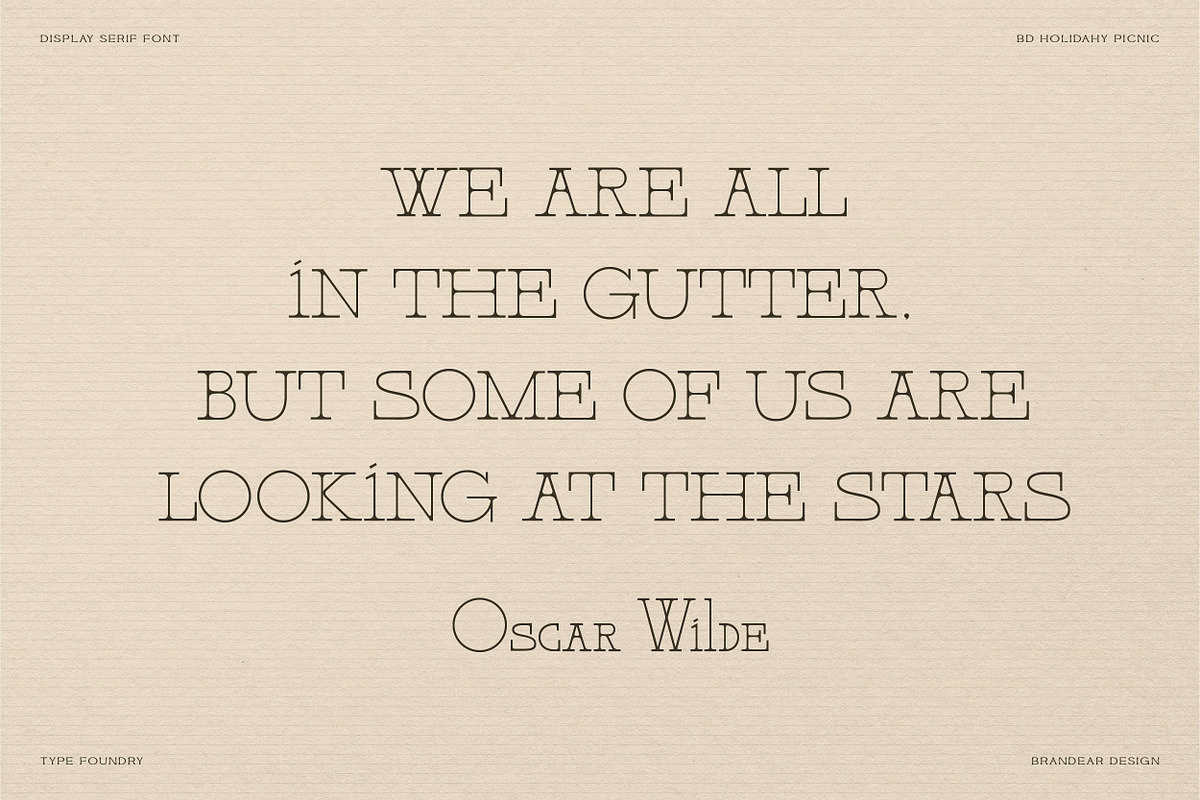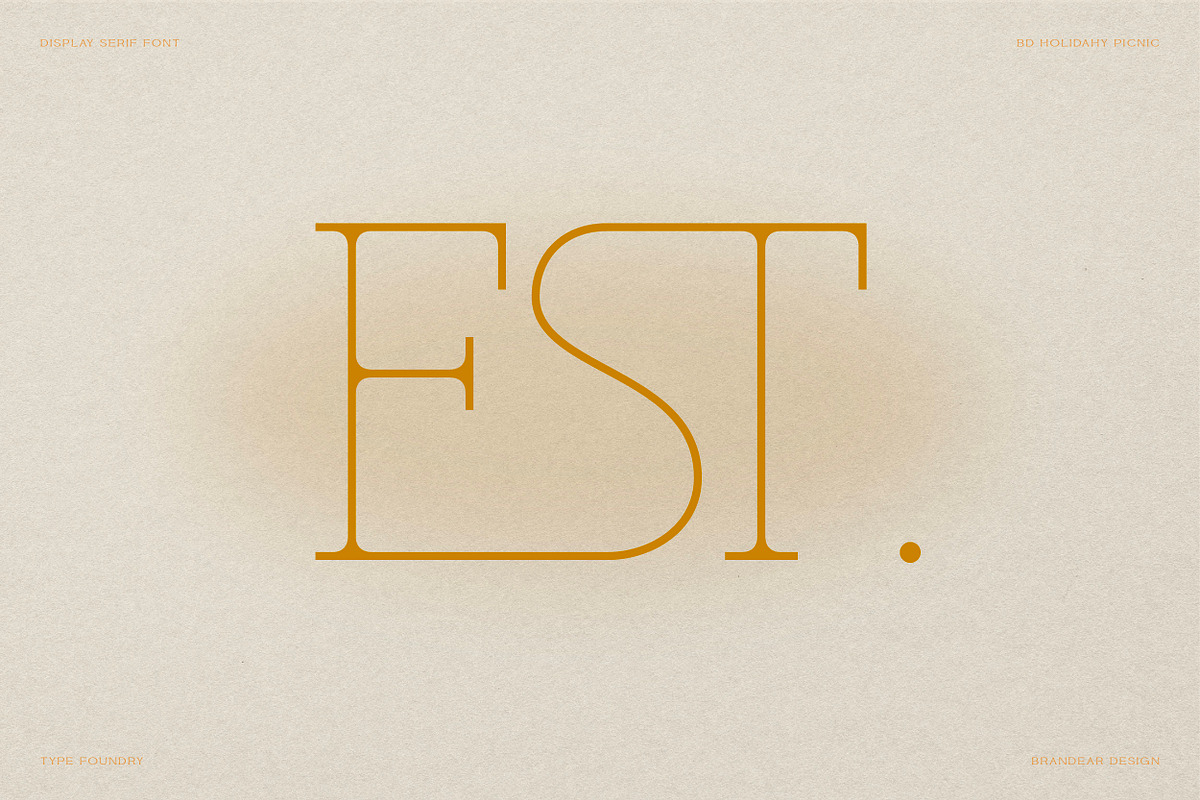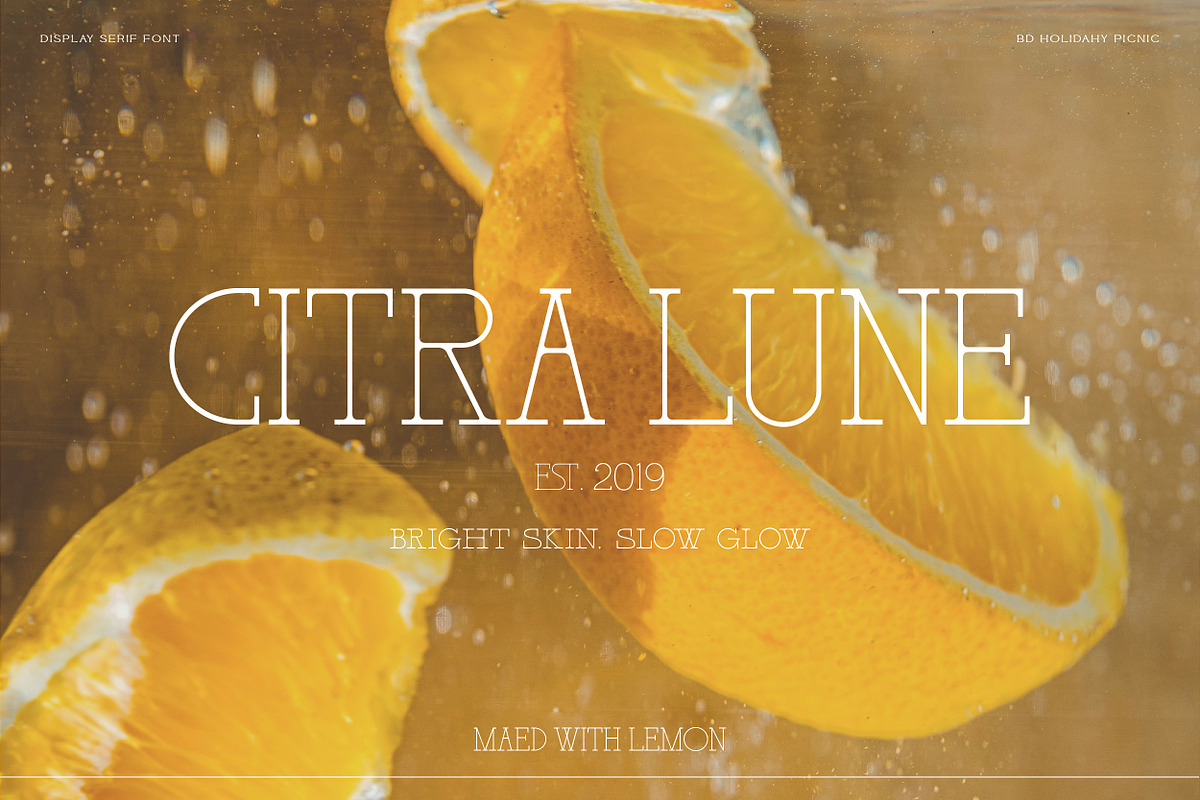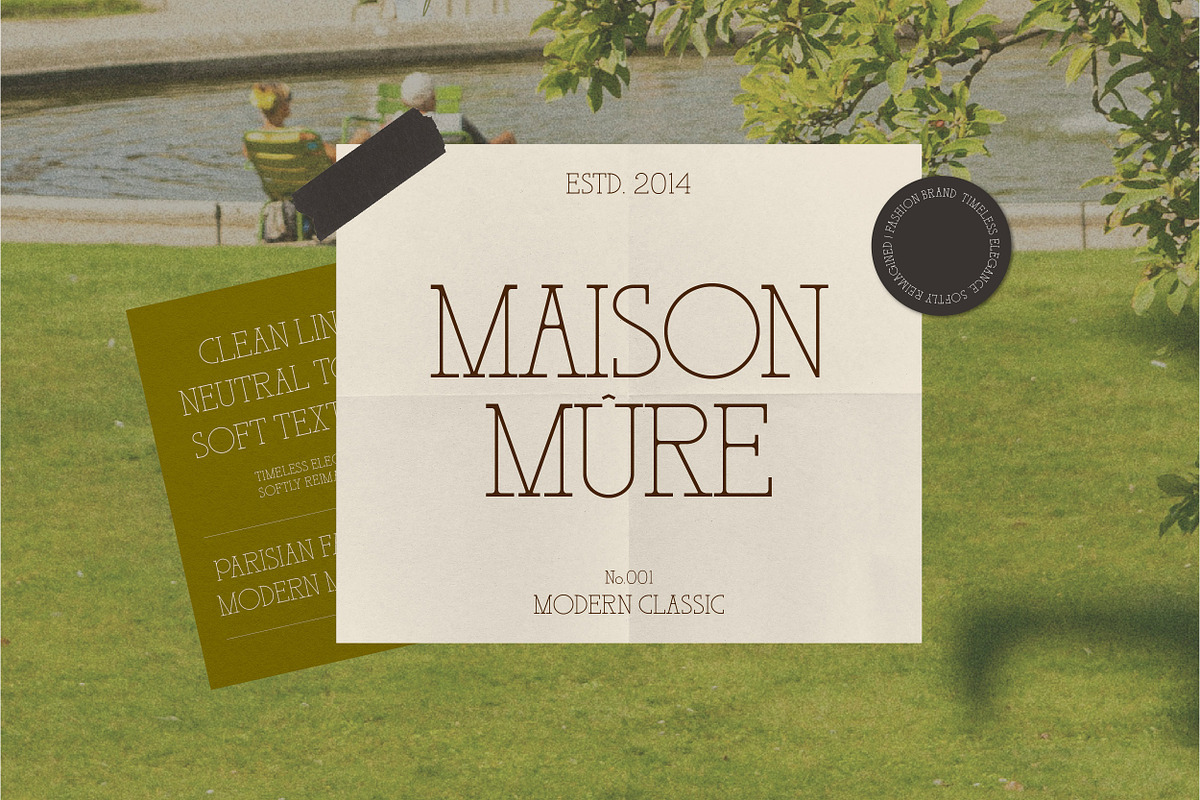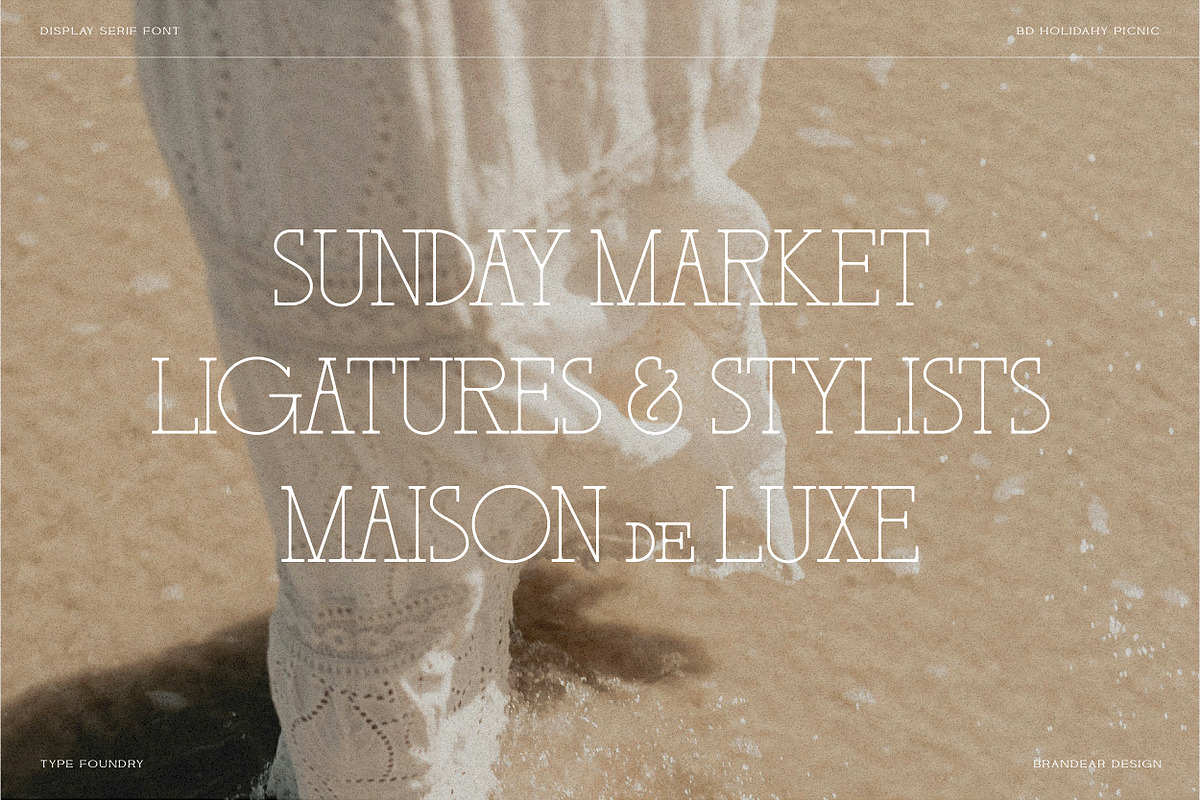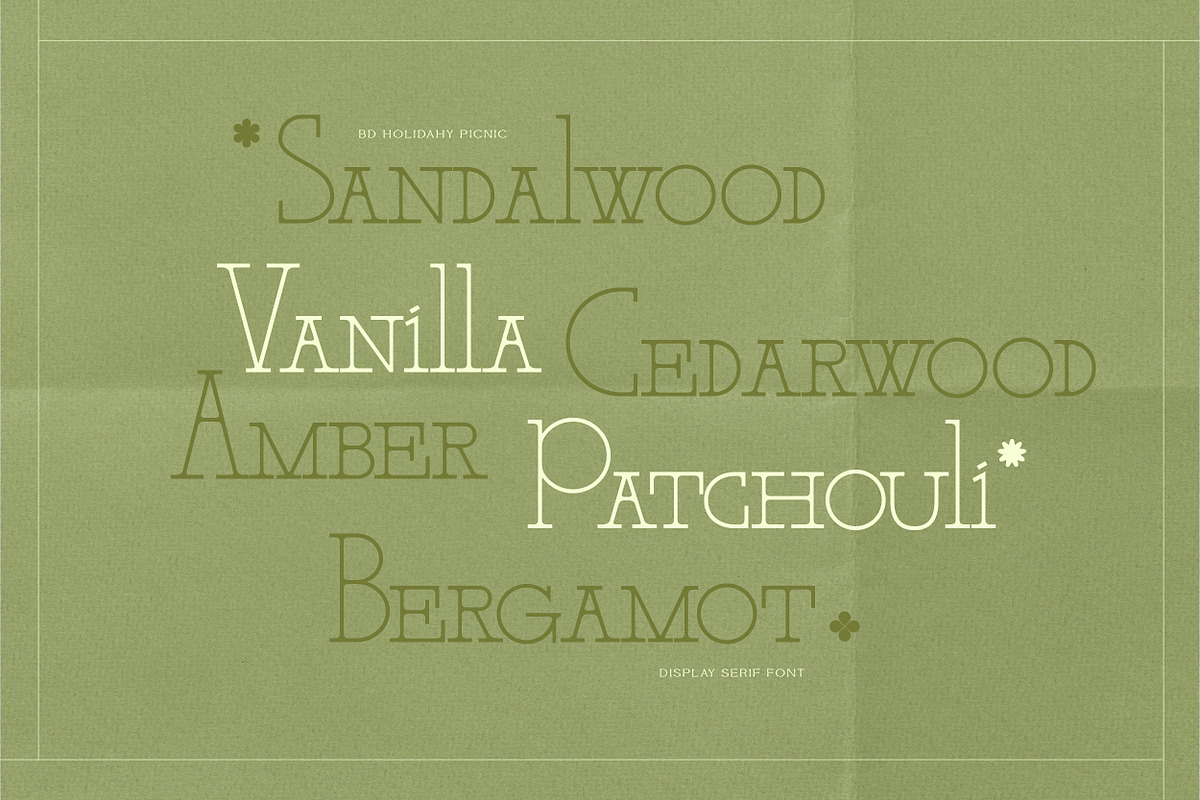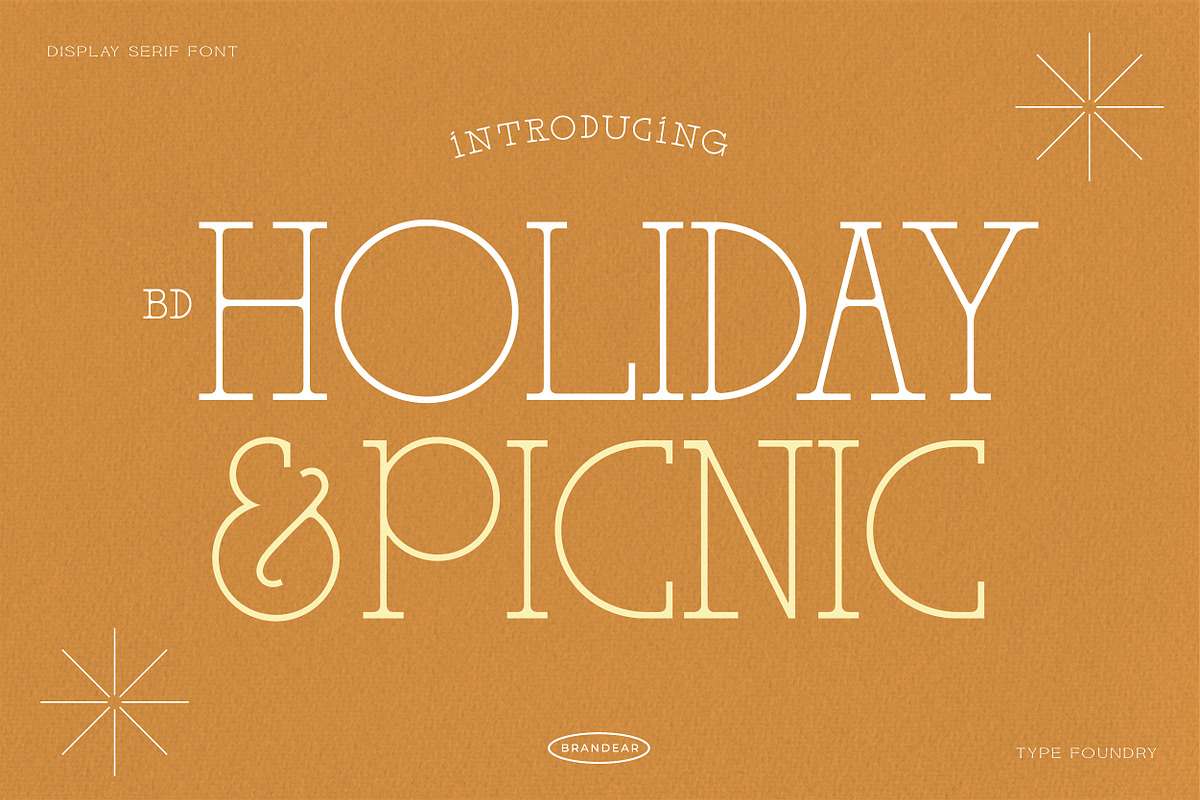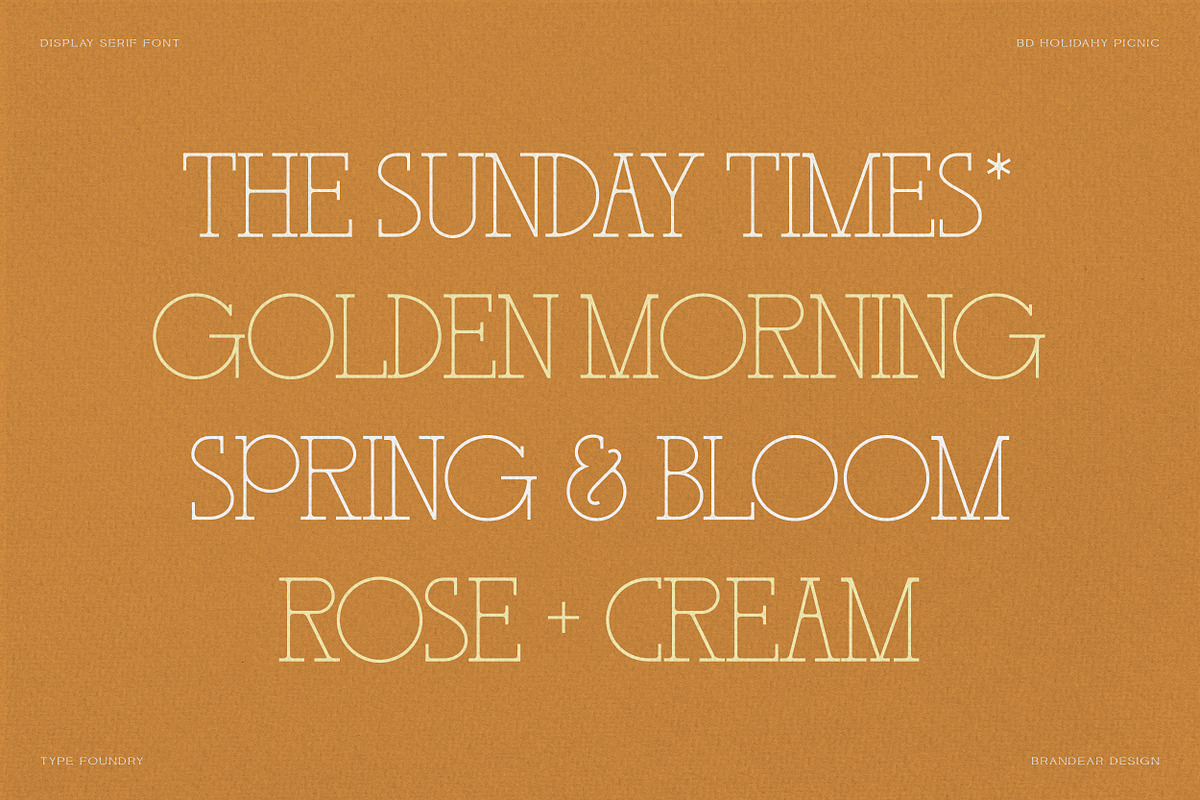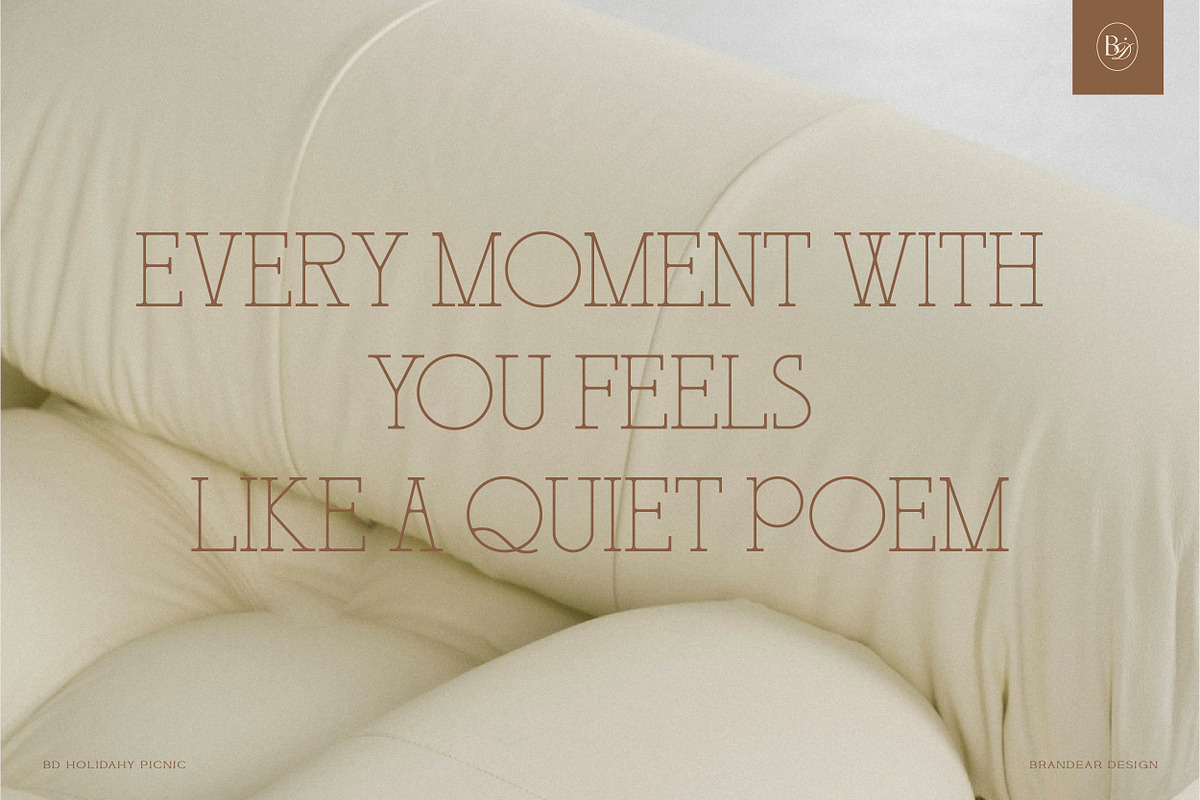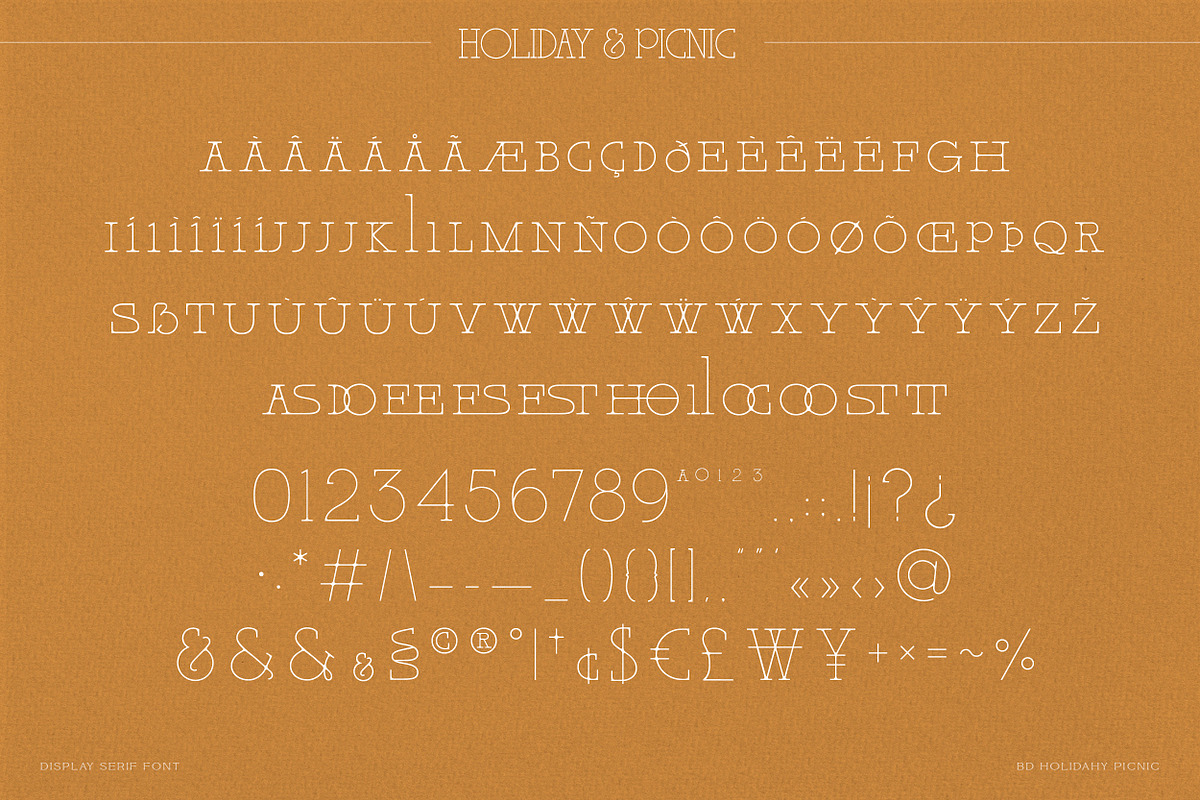
BD Holiday & Picnic
BD Holiday & Picnic is a sophisticated display serif font that blends vintage charm with modern elegance. The thin, airy lines and generous spacing evoke a relaxed, sunny atmosphere—perfect for projects that aim to feel fresh, nostalgic, and upscale. Whether used for packaging, headlines, invitations, or logo design, BD Holiday & Picnic brings a distinctive balance of retro flair and contemporary sophistication